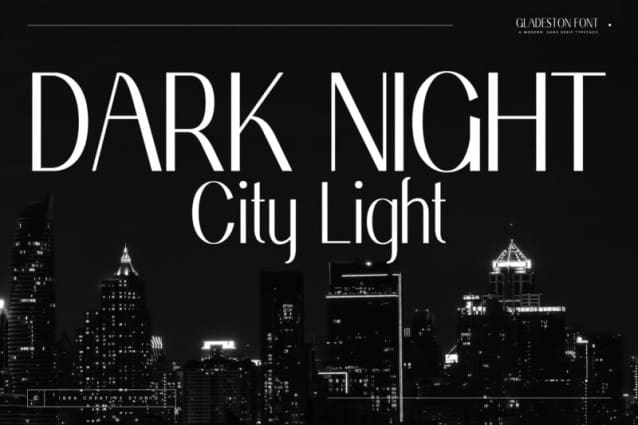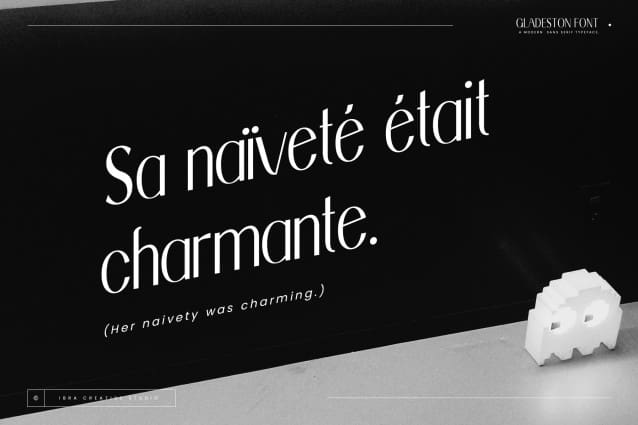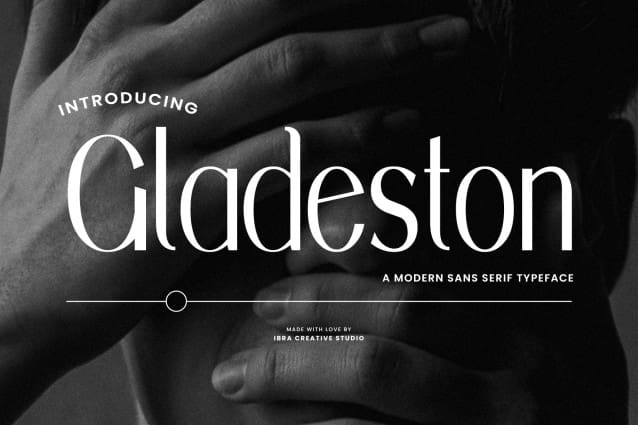
Gladeston Font, a contemporary sans-serif typeface, seamlessly combines sophistication with modernity, making it an ideal choice for a wide range of design applications. With clean lines, balanced proportions, and a minimalist aesthetic, Gladeston exudes a sense of professionalism and clarity. Its versatile design lends itself well to both display and body text, ensuring readability across various platforms. The typeface’s geometric shapes and subtle, yet distinctive, details contribute to a timeless and refined appearance, making Gladeston a standout choice for brands and projects seeking a sleek and contemporary visual identity.
Gladeston Font is perfect for branding projects, logo, wedding designs, social media posts, advertisements, product packaging, product designs, label, photography, watermark, invitation, stationery, game, fashion and any projects.